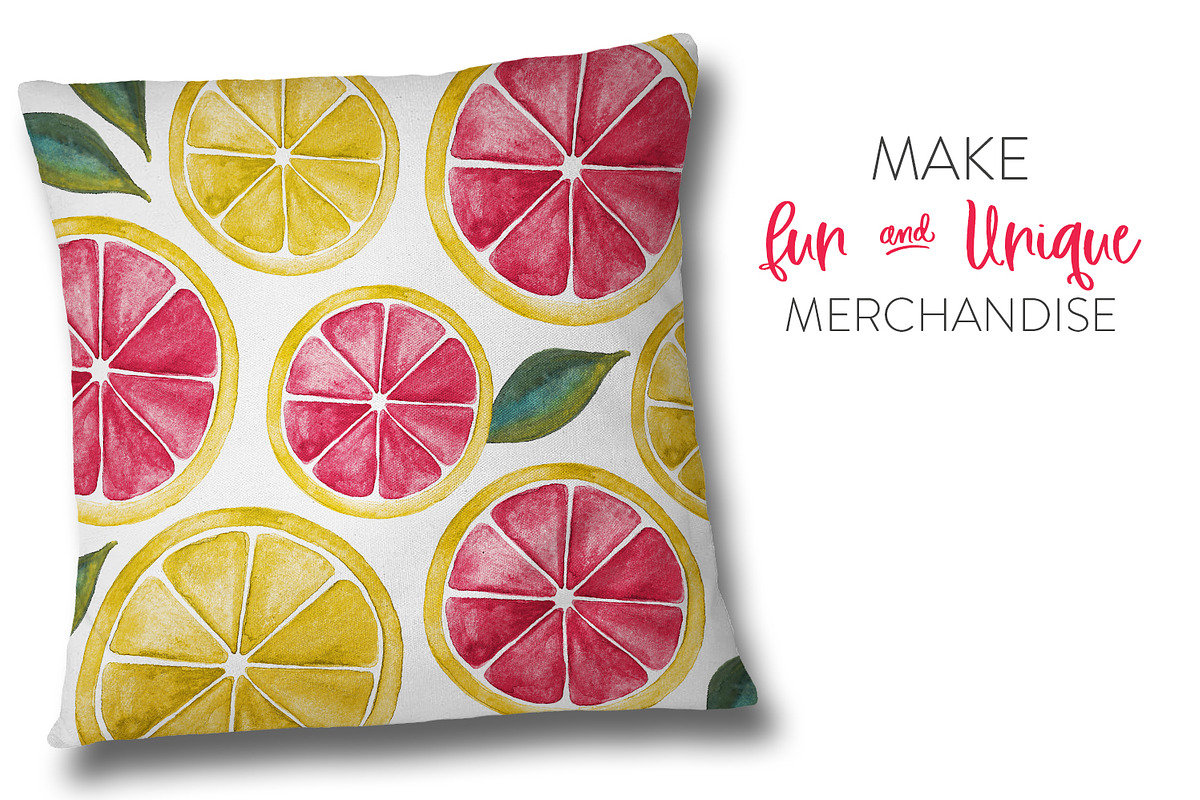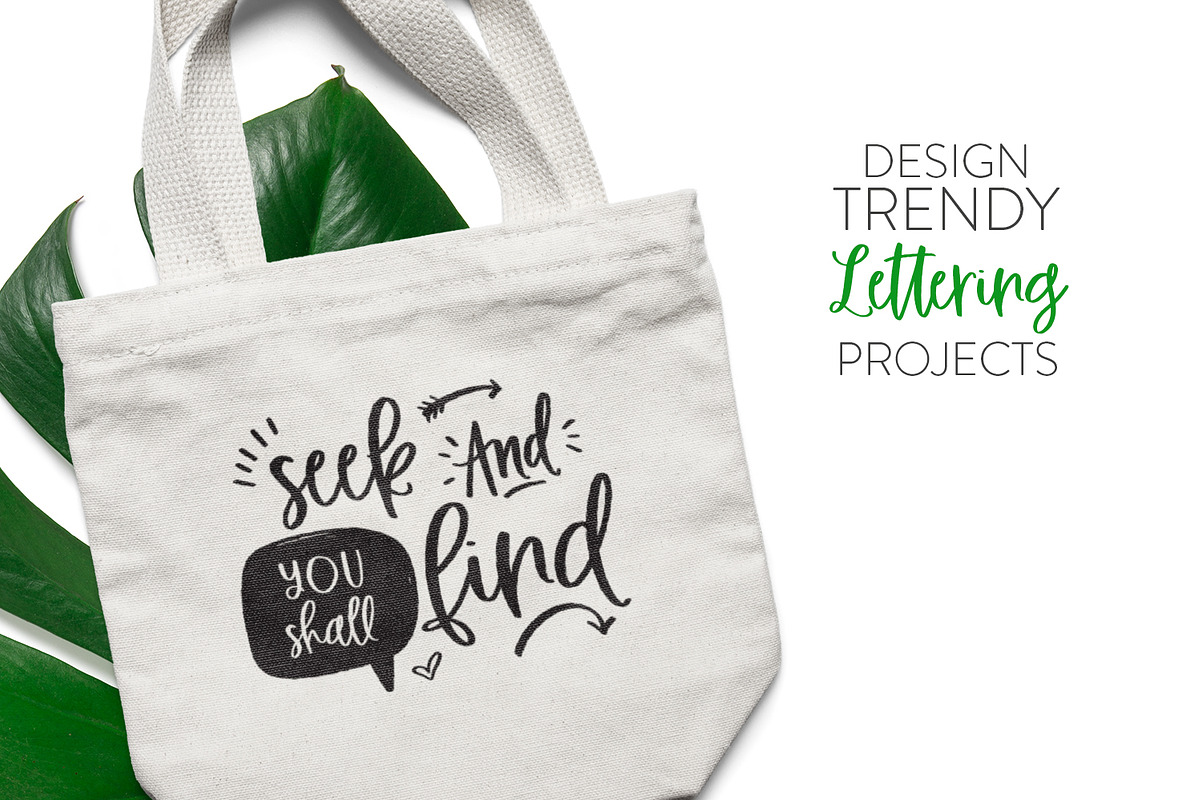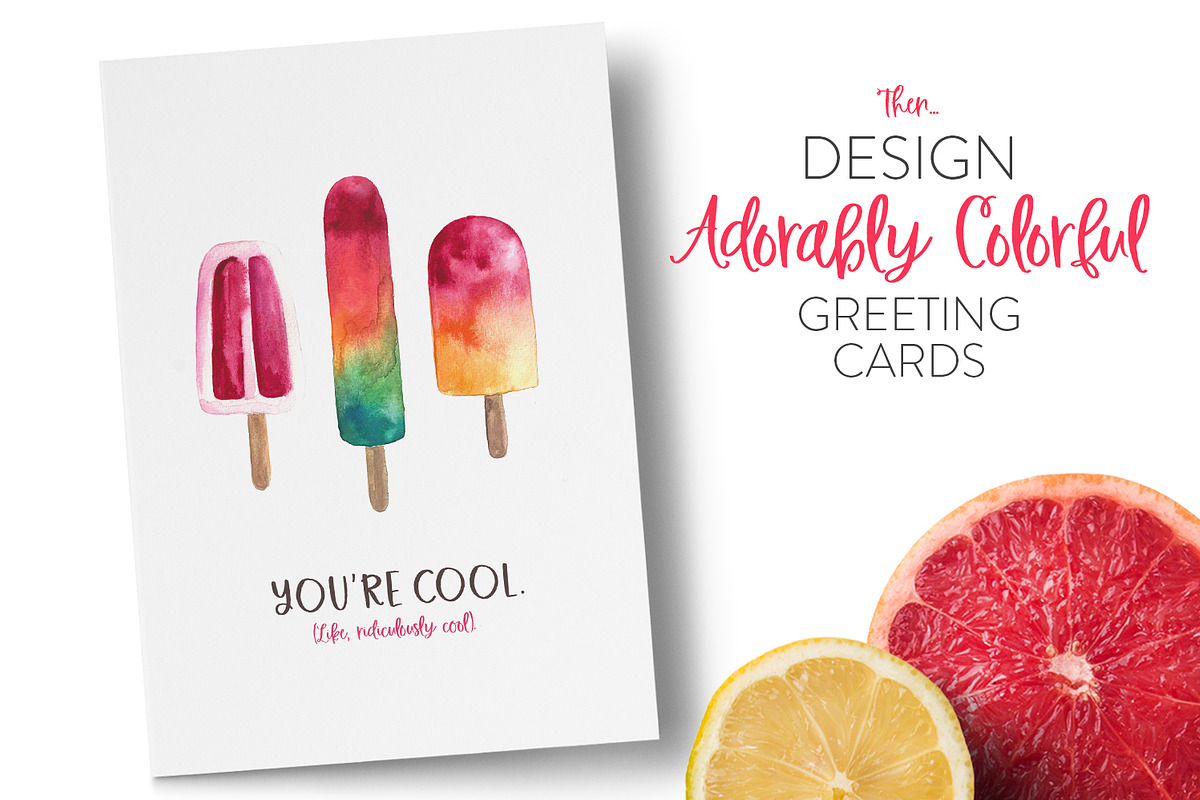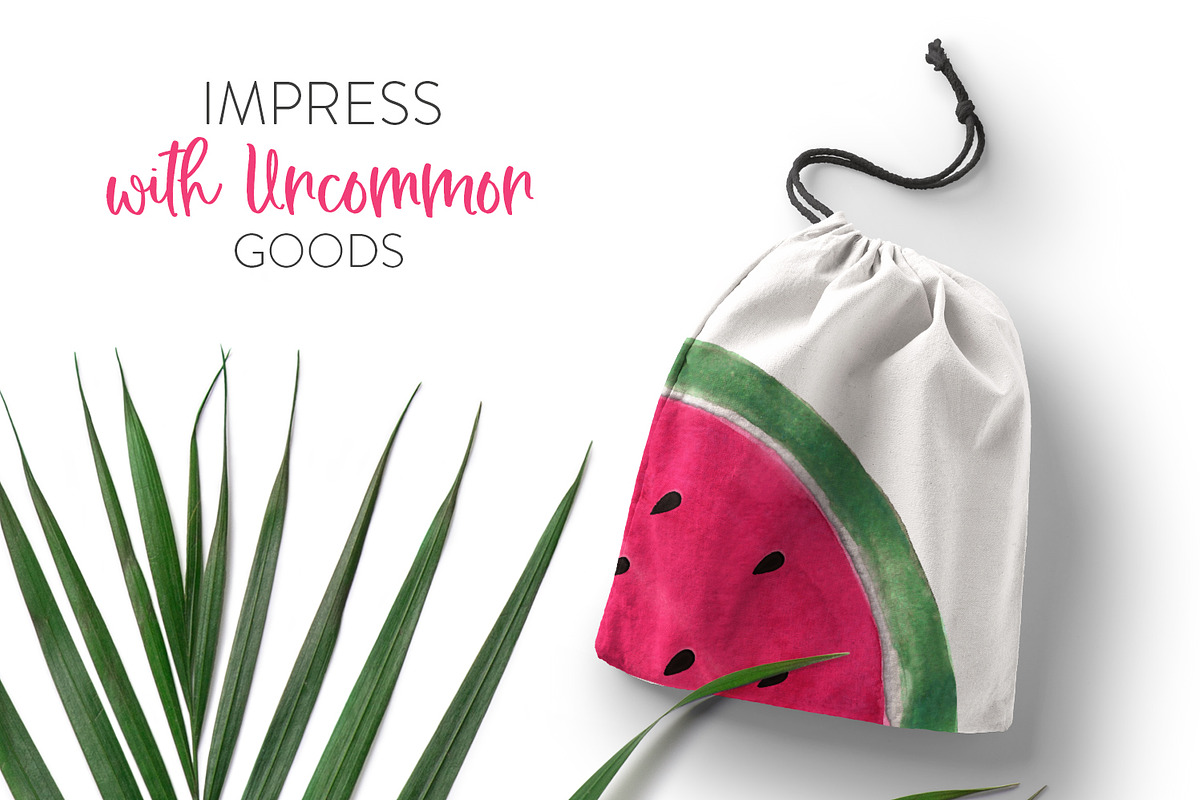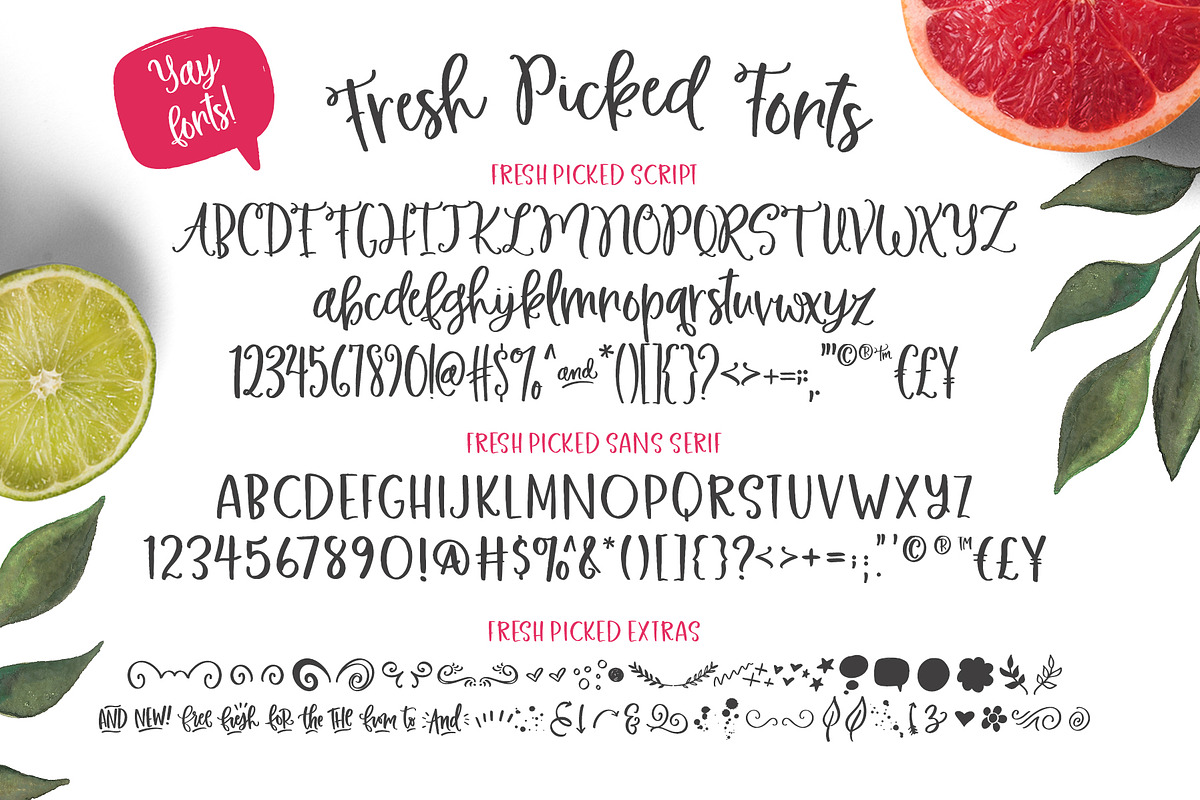
Fresh Picked Watercolor & Font Kit
Need something bright and sweet for the summer? πππ
Then dive into the Fresh Picked Watercolor & Font Kit! This baby is packed with over 55 hand-painted watercolors, three new fonts, including a digbat font with loads of hand-drawn extras, 6 ready-made logos and a set of brand new watercolor textures! Everything was designed to work together, so this is your one-stop-shop for Fresh Picked design kit!
Fresh Picked Script (Regular) - A casual, hand-drawn script font, perfect for invitations, lettering projects, packaging and logos.
Fresh Picked Script (Bold) - Just like regular, but you know, bold. :)
Fresh Picked Sans - A complimentary sans serif version that perfectly pairs with FP Script.
Fresh Picked Extras - A font file containing more than 85 hand-drawn doodles, ornaments and catchwords.
Fresh Picked fonts contain the following language support: AΓΓΓΓΓΓ CΓDΓEΓΓΓΓIΓΓΓΓNΓOΓΓΓΓΓΓUΓΓΓΓWαΊΕ΄αΊαΊYΓΕΈα»²ΕΈΓΕΓΓΓΎ